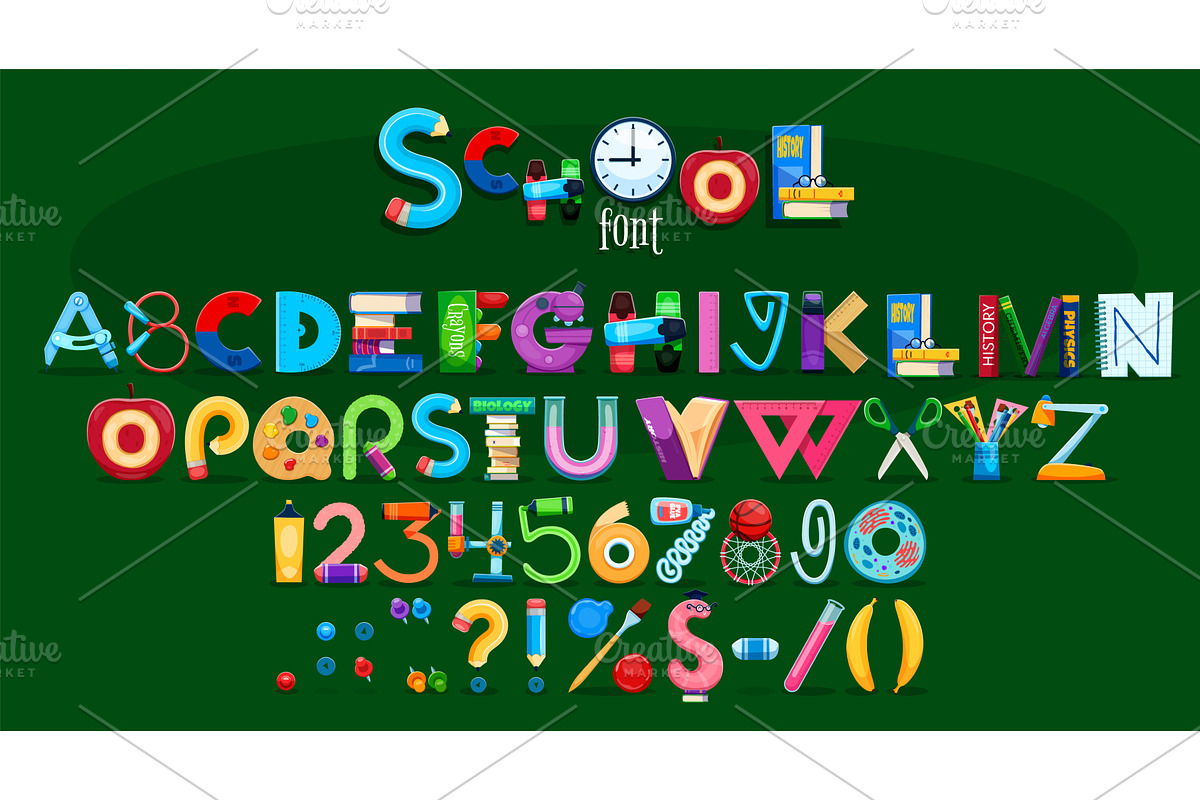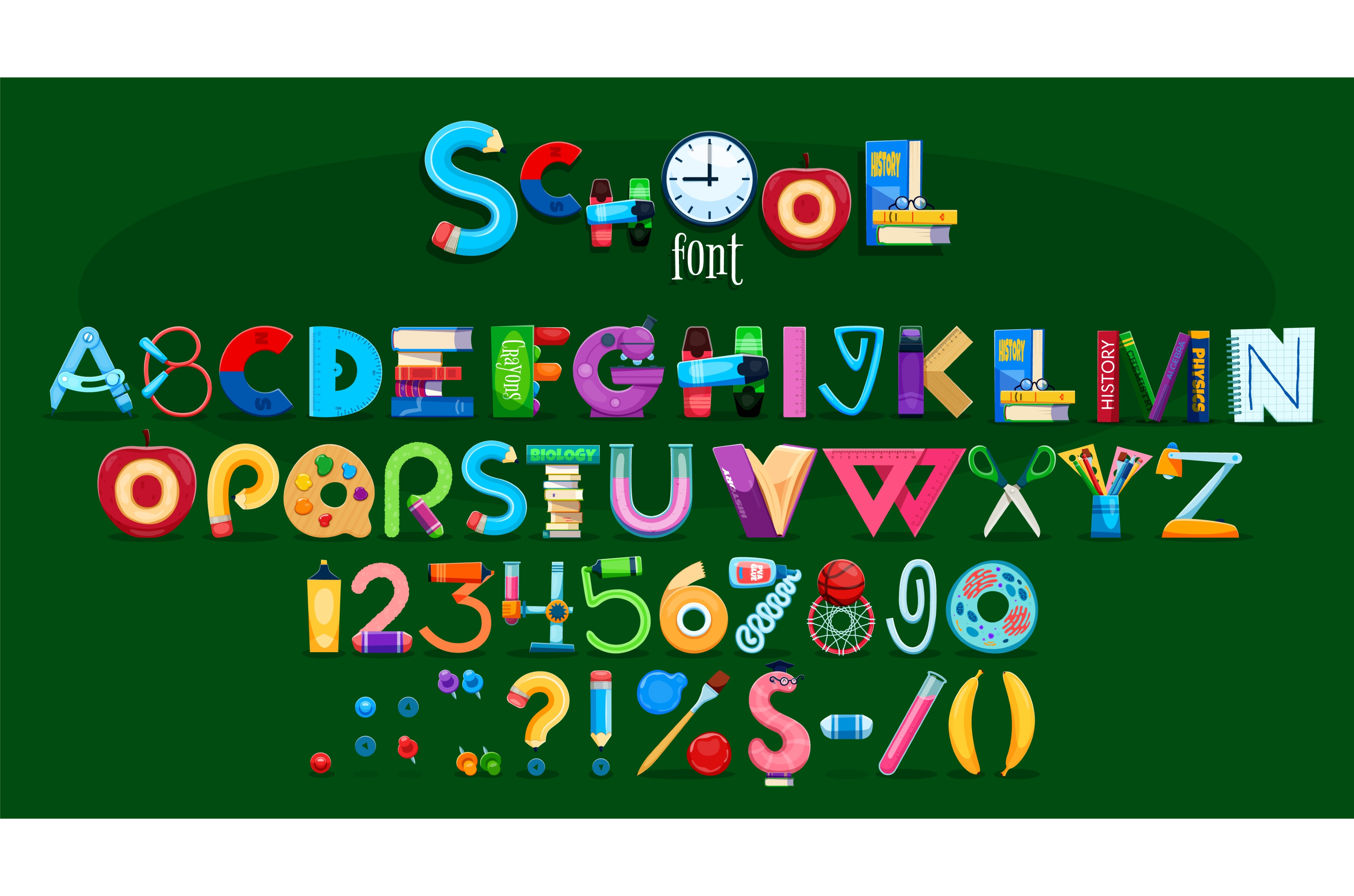
School font, education typeface
School font, education typeface, abc type, kids English alphabet letters, numbers and signs with educational items such as books, pens, apples and stationery. Funny typeset for children fun learning